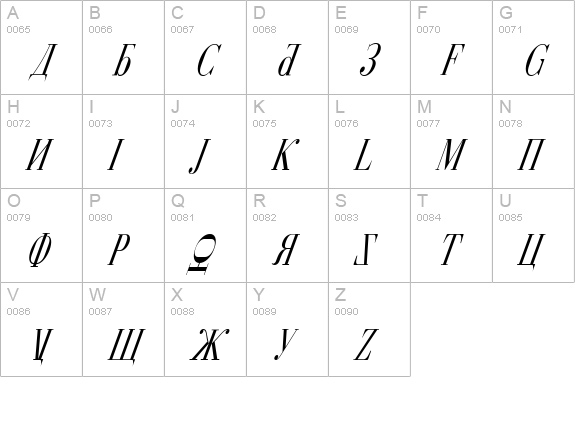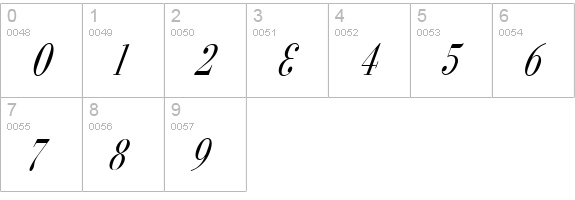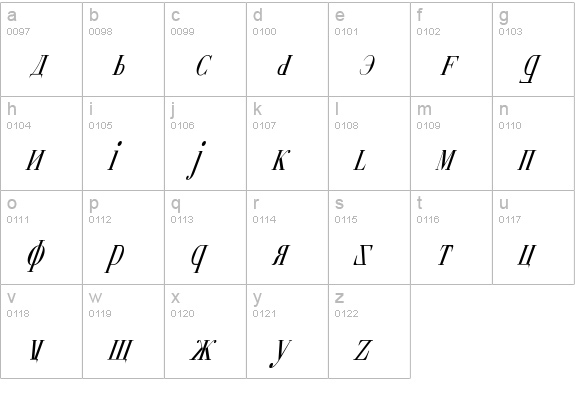
Cyberia Condensed Italic is a distinctive, condensed-width, italic variant in the Cyberia typeface family \xE2\x80\x94 well suited to design and typography projects.
Cyberia Condensed Italic font exudes a sleek and modern aesthetic, perfect for adding a touch of sophistication to any design project. Its italicized style brings a sense of dynamism and movement, making it ideal for conveying a sense of energy and forward momentum. The condensed form of the font allows for efficient use of space while maintaining readability and clarity. Best of all, Cyberia Condensed Italic font is available for free download at FontsMarket.com. This means you can easily access this versatile typeface without any cost, making it a valuable addition to your font collection. Whether you're working on a website, a branding project, or a printed piece, Cyberia Condensed Italic font is sure to elevate your design with its contemporary flair and versatility. Download it today and see the difference it can make in your creative endeavors!